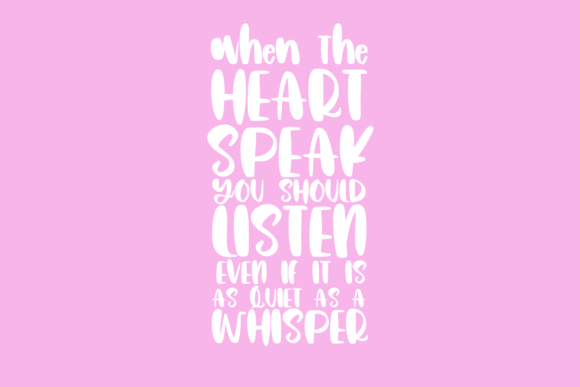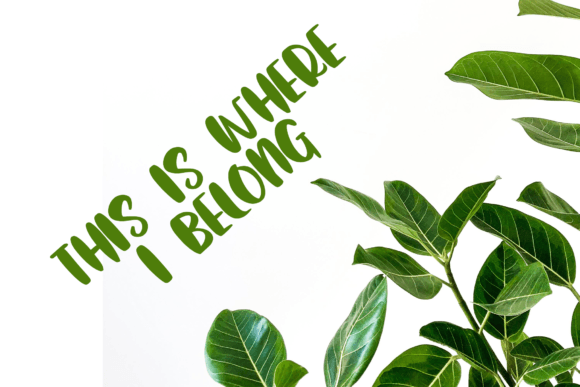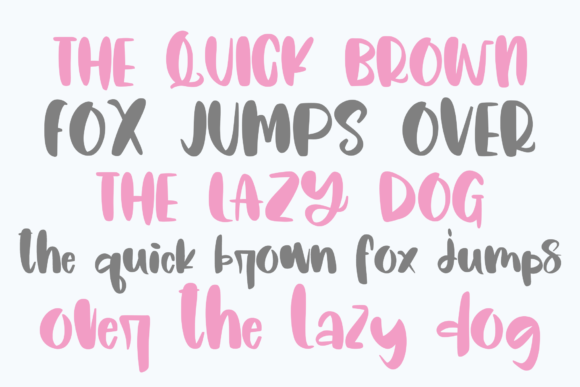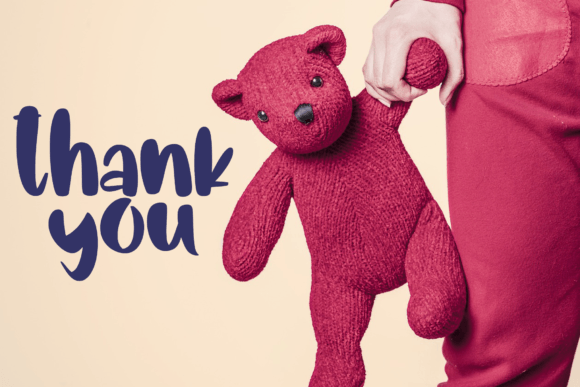
Introducing Amalia Font: The Perfect Addition to Your Design Arsenal
Are you tired of using the same old fonts in your designs? Look no further! Amalia font is an energetic new display font that’s sure to lift your creations and add a cheeky touch. In this article, we’ll dive into the world of Amalia font, exploring its features, uses, and benefits for designers and crafters.
What is Amalia Font?
Amalia font is a fun and happy display font designed to bring a burst of energy to your designs. Its playful and lively vibe makes it perfect for projects that require a youthful and carefree approach. Whether you’re working on a kids’ book, creating cute quotes, or designing engaging social media content, Amalia font is the ideal choice.
Key Features of Amalia Font
- Energetic and Playful: Amalia font is designed to add a fun and lively touch to your designs. Its unique and quirky style ensures that your projects stand out from the crowd.
- Highly Versatile: This font is perfect for a wide range of projects, including kids’ books, cute quotes, social media graphics, and more.
- Easy to Read: Despite its playful nature, Amalia font remains highly legible, making it suitable for both digital and print applications.
- Customizable: Amalia font can be easily customized to fit your design needs. Experiment with different colors, sizes, and styles to create unique and eye-catching designs.
Uses of Amalia Font
Amalia font is an incredibly versatile font that can be used in a variety of design projects. Here are some ideas to get you started:
- Kids’ Books: Add a playful touch to your children’s book with Amalia font. Its fun and energetic style is sure to delight young readers.
- Cute Quotes: Create inspiring and uplifting quotes with Amalia font. Its cheerful vibe makes it perfect for social media graphics, posters, and flyers.
- Social Media Graphics: Use Amalia font to create engaging social media graphics that are sure to grab attention.
- Party Invitations: Add a playful touch to your party invitations with Amalia font. Its fun and festive style is perfect for birthday parties, baby showers, and more.
Benefits of Using Amalia Font
So, why should you choose Amalia font for your design projects? Here are some benefits to consider:
- Unique and Eye-Catching: Amalia font is a unique and eye-catching addition to any design project. Its playful style ensures that your designs stand out from the crowd.
- Time-Saving: With Amalia font, you can create professional-looking designs in no time. Its highly legible and customizable nature makes it easy to use and adapt.
- Fun and Engaging: Amalia font adds a fun and engaging touch to your designs, making them more enjoyable and shareable.
Tips for Using Amalia Font
To get the most out of Amalia font, here are some tips to keep in mind:
- Experiment with Colors: Amalia font looks great in a variety of colors. Experiment with different hues and combinations to find the perfect fit for your design.
- Play with Sizes: Amalia font can be used in a range of sizes, from small and delicate to large and bold. Experiment with different sizes to create visual interest.
- Combine with Other Fonts: Amalia font pairs well with other fonts. Experiment with different combinations to create unique and eye-catching designs.
| Font Name | Amalia Font |
| Author | By Anggun.studio |
In conclusion, Amalia font is an energetic and playful display font that’s perfect for designers and crafters looking to add a fun and cheeky touch to their designs. With its highly versatile and customizable nature, Amalia font is suitable for a wide range of projects, from kids’ books to social media graphics. So why not give Amalia font a try and see how it can elevate your designs?